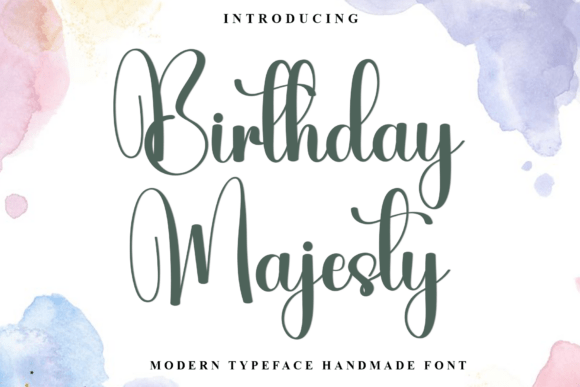
The Magic of Birthday Majesty Font: Elevate Your Holiday Designs
A Festive and Merry Typeface
Birthday Majesty Font is a decorative typeface that embodies the essence of the holiday season. Its whimsical flair and enchanting elements add a touch of magic to any design project. Whether you’re working on greeting cards, gift tags, or holiday-themed projects, this font is sure to bring a cheerful and nostalgic ambiance to your words.
What I Love About Birthday Majesty Font
- ✨ PUA Encoding: This font is PUA encoded, making it easy to access all the amazing glyphs and ligatures.
- ✅ Decorative Elements: The font features beautiful decorative elements that add a touch of festivity to your designs.
- 🎉 Whimsical Flair: Birthday Majesty Font has a playful and whimsical feel that’s perfect for holiday designs.
While Birthday Majesty Font is an excellent choice for holiday designs, there are a few quirks to consider:
- 🤔 Limited Use Cases: This font is specifically designed for holiday-themed projects, so it may not be the best choice for other design projects.
- ⚠️ Glyph Access: While the font is PUA encoded, some users may need to access the glyphs through the OpenType features or Character Map.
The Story Behind Birthday Majesty Font
Birthday Majesty Font was designed by a team of creative typographers who wanted to capture the essence of the holiday season. Inspired by traditional holiday decorations and festive typography, they crafted a font that would bring joy and magic to designs. The font’s whimsical flair and decorative elements are a nod to the nostalgia and wonder of the holiday season.